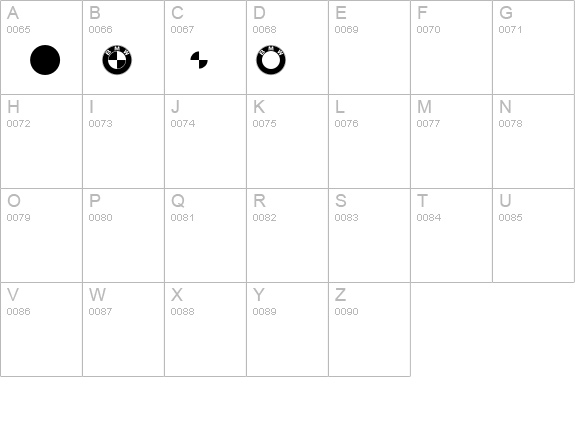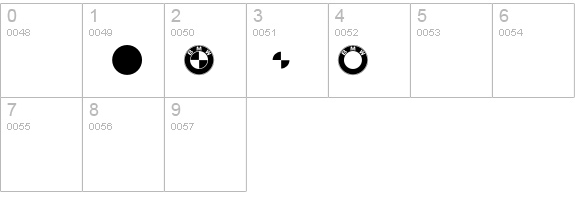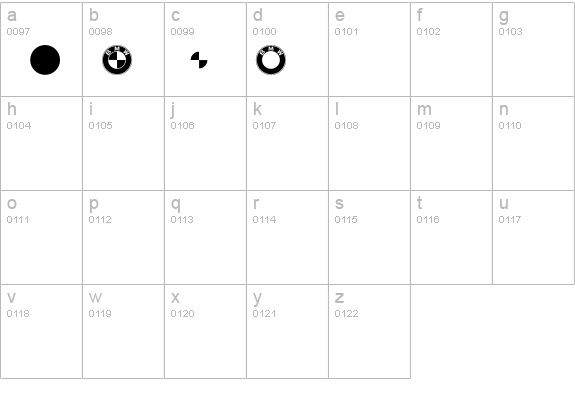
BMW Logo Font Details
The BMW Logo font is a sleek and sophisticated typeface that exudes elegance and modernity. Its clean lines and sharp angles make it perfect for creating a professional and polished look. The font is versatile and can be used for a wide range of design projects, from logos to branding materials. Best of all, it is available for free download at FontsMarket.com, making it easily accessible to designers and creatives looking to elevate their work with a touch of luxury. Get your hands on the BMW Logo font today and add a touch of sophistication to your designs!